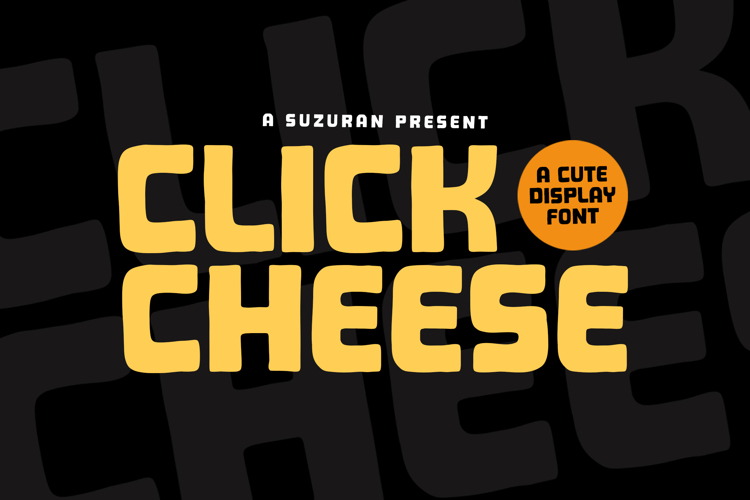
Introducing the Click Cheese, a font that is very fresh, cute and bold style display font for your design project. Click Cheese is perfectly suited to logo, stationery, poster, apparel, branding, wedding invitation, card, tagline, layout design, and much more !!.